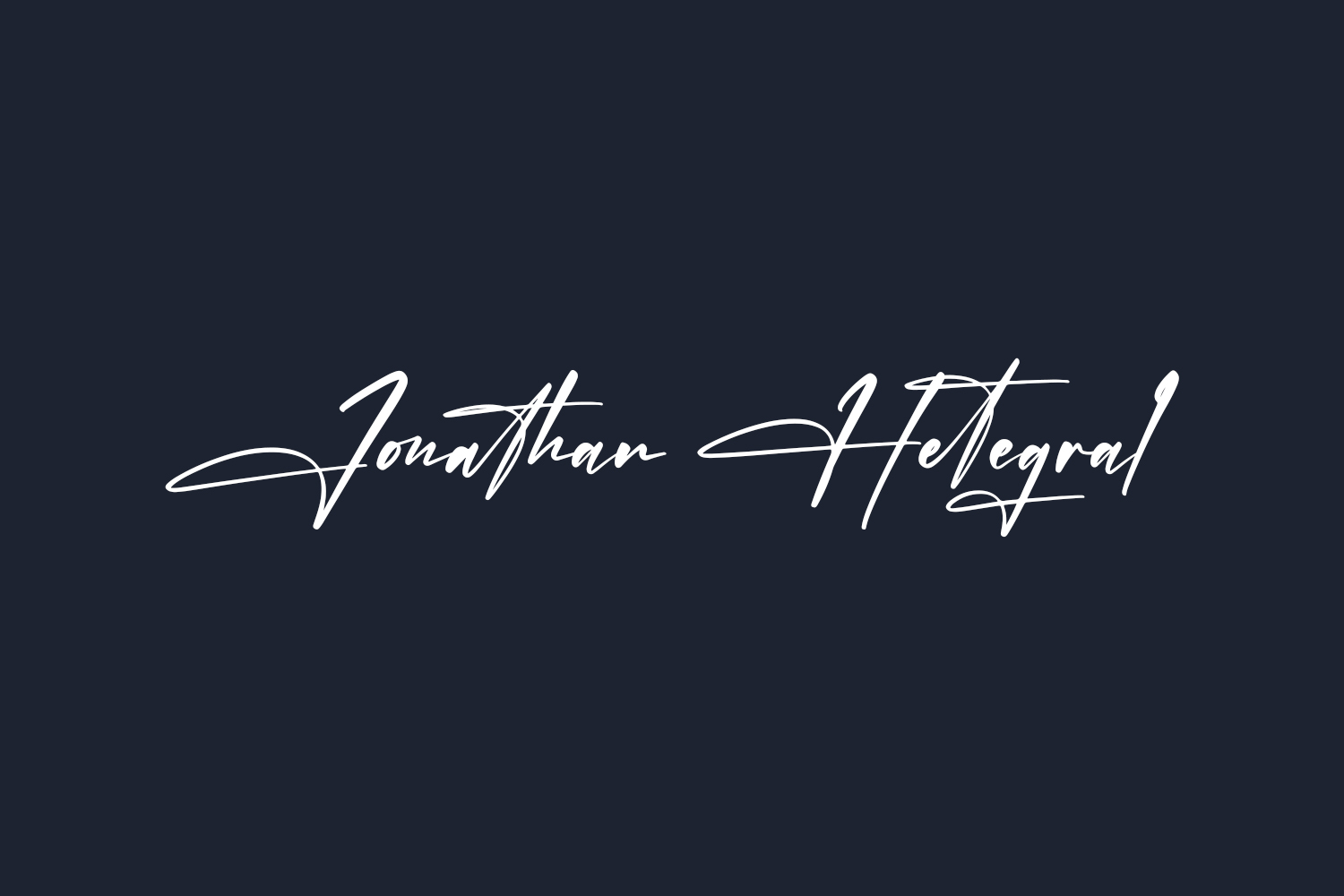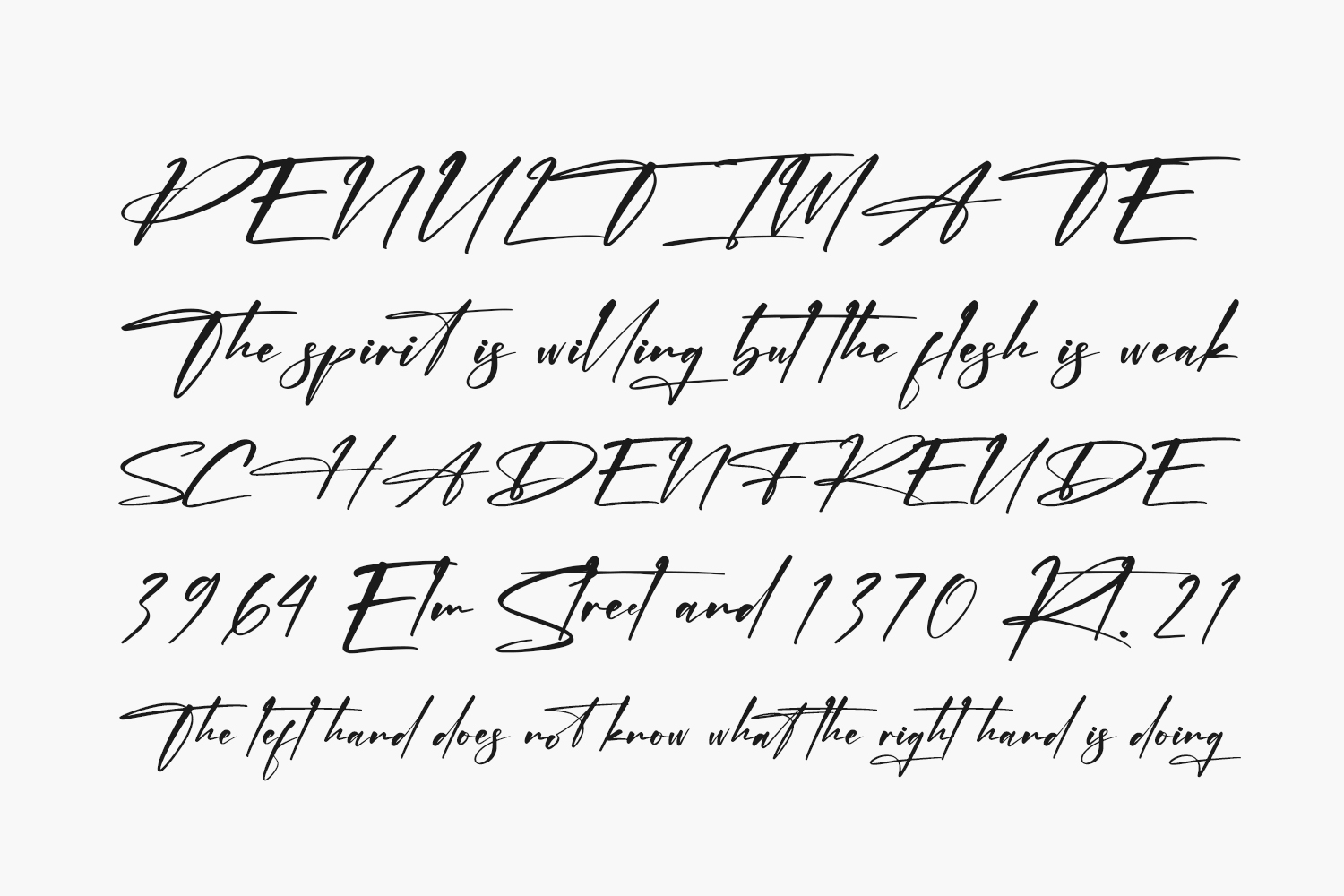
Jonathan Hetegral Free Font, an exquisite and sophisticated script font, boasts a stylish, elegant, and contemporary appearance. It serves as an ideal choice for crafting logos, establishing branding, designing invitations, creating stationery, curating wedding themes, fashioning engaging social media content, and a multitude of other creative applications. Jonathan Hetegral Free Font is free for personal use only. Please purchase the full version for commercial use.